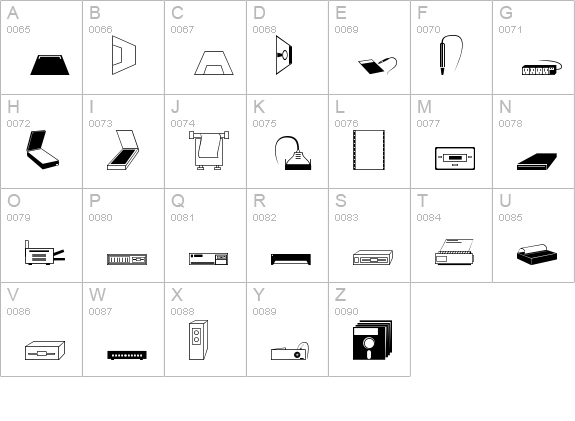
Computer Dingbats font is a whimsical and fun typeface that features a collection of unique symbols and icons perfect for adding a creative touch to your designs. This font is free to download at FontsMarket.com, making it easily accessible for all your design needs. With its playful and eye-catching characters, Computer Dingbats font is sure to bring a touch of personality to any project. Whether you're designing a flyer, poster, or social media graphic, this font is a versatile choice that will make your designs stand out. Download Computer Dingbats font today and let your creativity shine!